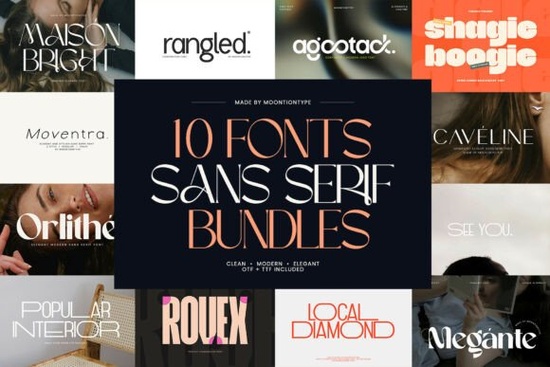
Finding the right font for a design project can feel surprisingly difficult. You want something clean, modern, and versatile but also distinctive enough to stand out. The Modern Sans Serif Bundles Font collection on Creative Fabrica solves that by giving you a curated set of minimalist typefaces built for professional-looking work across logos, packaging, social media, and editorial layouts. Whether you're starting a brand or polishing a client project, having a solid font bundle on hand makes the creative process much smoother.
What's Actually Included in This Bundle?
This bundle brings together multiple sans serif typeface families, each with its own personality while sharing a clean, contemporary aesthetic. You'll find fonts suited for luxury branding, elegant display projects, and everyday creative work. The variety means you can pair different weights and styles without clashing, which saves a lot of time during the design process.
For example, typefaces like Amavera and Savora offer that refined, editorial feel that works beautifully for magazine-style layouts and brand identity work. Other fonts in the collection lean more toward functional, highly legible designs that are great for body text, UI mockups, and product descriptions.
Who Is This Bundle Designed For?
If you're a designer, crafter, print-on-demand seller, or small business owner, this bundle was made with you in mind. Here are some common ways people put it to use:
- Logo design Clean sans serif fonts create memorable, professional brand marks without looking overdone.
- Social media graphics Minimalist typefaces keep your posts looking polished and readable at any size.
- Website headers and UI layouts Modern sans serifs pair well with almost any visual style.
- Packaging and product labels Especially for products that need a premium, understated look.
- Print-on-demand products Mugs, t-shirts, planners, and notebooks all benefit from clean typography.
Fonts like Life Planner Duo are a natural fit for planners and stationery designs, while options available through this refined typeface selection bring a slightly more editorial quality to the table.
Why Does Font Choice Matter So Much?
Typography is one of the first things people notice in a design even if they can't explain why. A poorly chosen font can make an otherwise solid layout look amateur. The right typeface, on the other hand, can make a simple design feel intentional and high-end.
Modern sans serif fonts are especially popular right now because they work across so many contexts. They're clean enough for corporate branding, stylish enough for editorial work, and legible enough for small text on screens and in print. Sans serif typefaces consistently rank among the most used styles on the web, and for good reason they're readable and adaptable.
With typefaces like Ragonte and Gaglio, you get that balance of style and function without needing to spend hours browsing through hundreds of individual fonts trying to find the right match.
How Do These Fonts Compare to Free Options?
- Consistent quality across all included typefaces
- Multiple weights and styles for each font family
- Font pairings that already work well together
That consistency alone can save you hours of trial and error, especially when you're working on a brand system or multi-page layout where everything needs to feel cohesive.
What Should You Check Before Using a Font Bundle?
Before downloading and using any font pack, it's worth going through a few quick checks to make sure it's the right fit for your project.
- Review the license Confirm it covers your intended use, whether that's commercial projects, POD items, or client work.
- Preview each font Type out your brand name or key phrases to see how they actually look with your content.
- Think about pairing Look for a display font and a body font within the bundle that complement each other.
- Test at different sizes A font that looks great at 72pt might lose readability at 12pt.
Tip: If you're building a brand from scratch, pick your primary typeface from this sans serif font collection first, then choose a secondary font that complements it. Starting with your typography makes every other design decision color, layout, spacing easier to settle on. Try It Free